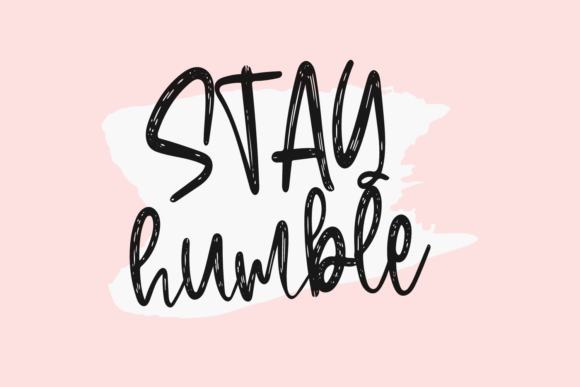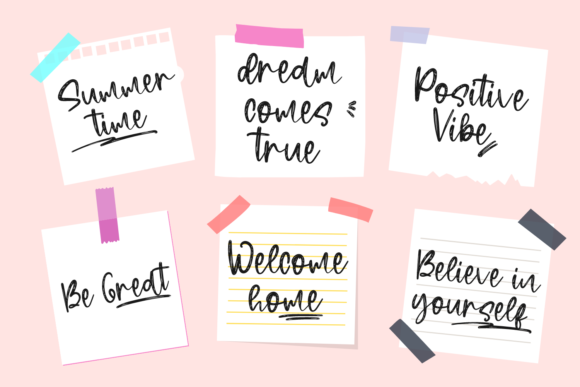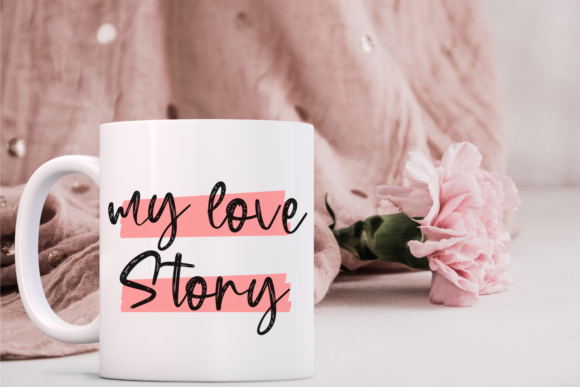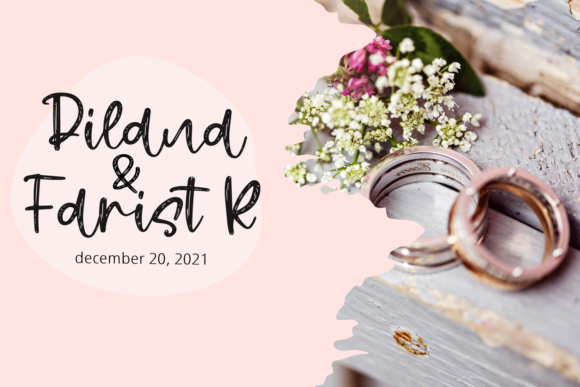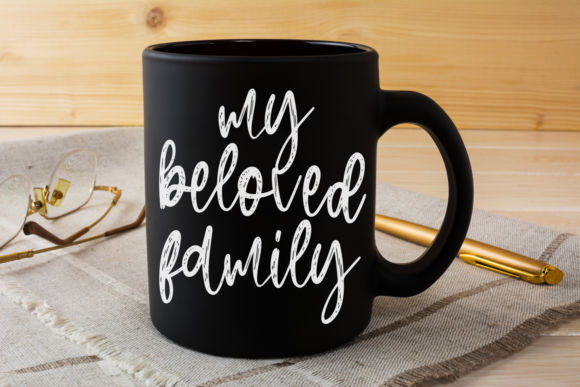
About Sensations Font
Sensations is a lightweight handwritten font that is perfectly suited for traditional media and web posting. It is great for crafters and graphic artists alike. Playful and sharp, it will look great on your next creative project, be it inspirational wall posters or brand promotions.